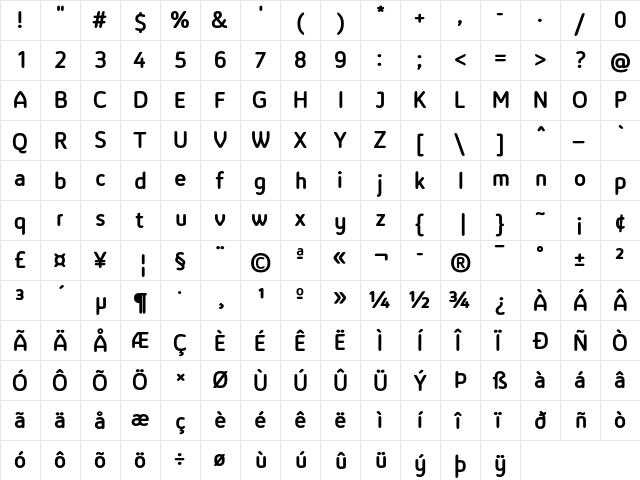
LT Reponse Rounded Two Bold Font Preview
| Foundry | Daniel Lyons Entertainment / LyonsType |
| Designer | Dan P. Lyons |
Design Context for LT Reponse Rounded Two Typeface
LT Reponse Rounded Two uses gentle rounded endings to create a warm, inviting typographic personality — less corporate than geometric sans, more refined than playful display fonts. The heavy weight commands attention and anchors typographic hierarchies.
Well-suited to UI design, mobile interfaces, and any brand that wants approachability without sacrificing clarity.
Font Pairing: Pairs well with a rounded or humanist sans for body copy, maintaining the friendly tone without relying on LT Reponse Rounded Two to carry extended reading.
Pro Tip: Use LT Reponse Rounded Two for UI elements, app interfaces, and anywhere a friendly, approachable tone needs to be maintained without sacrificing clarity.